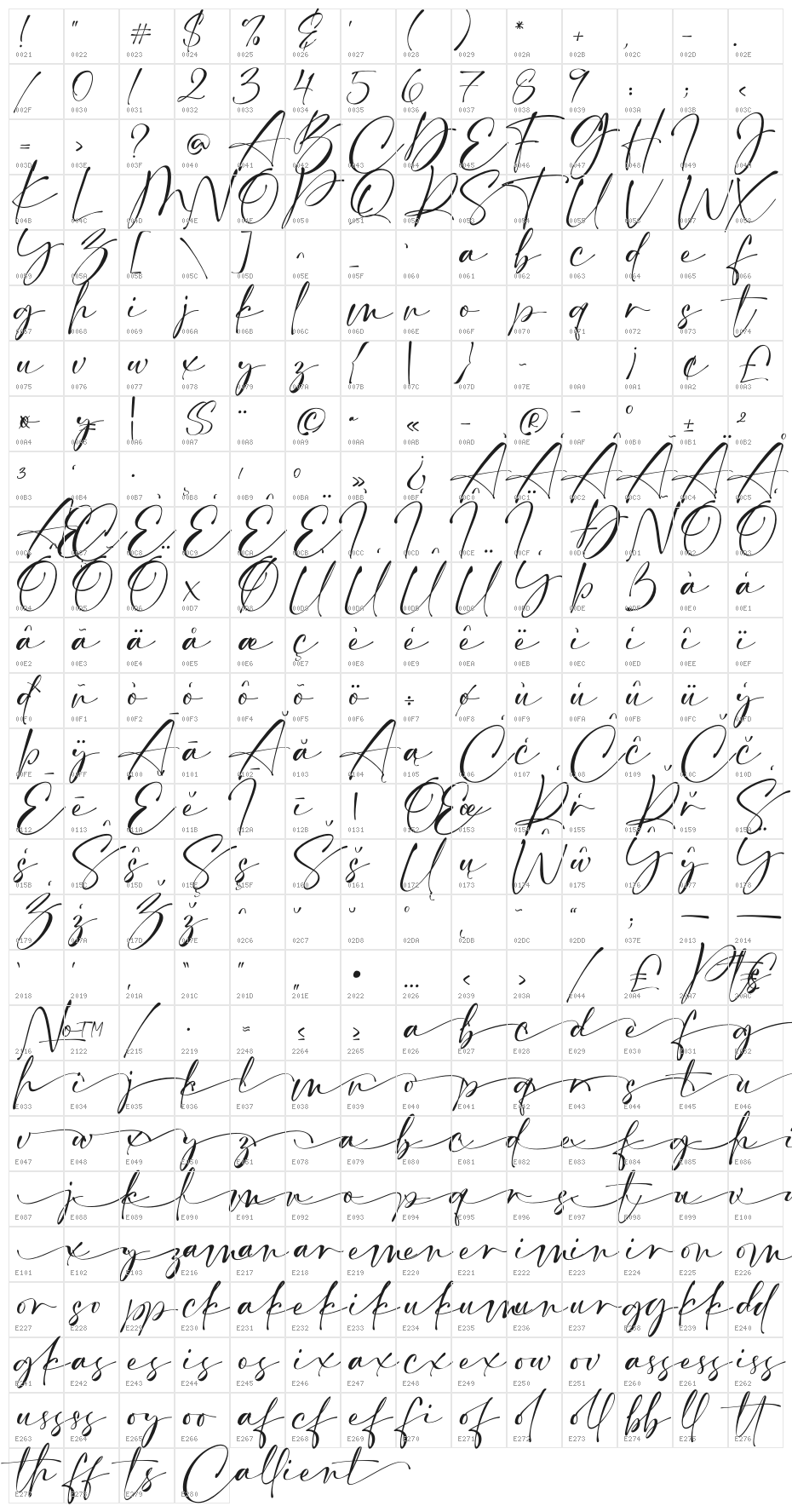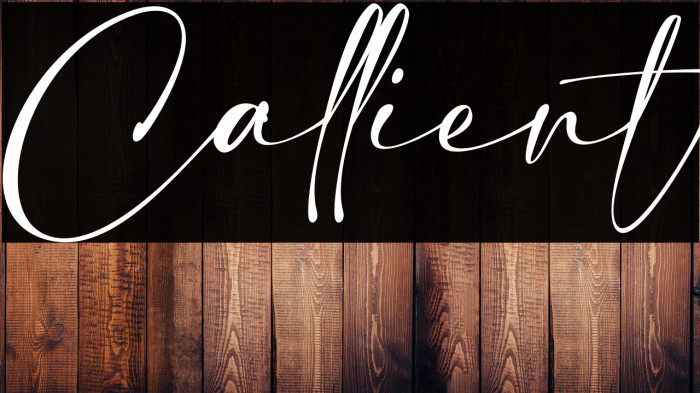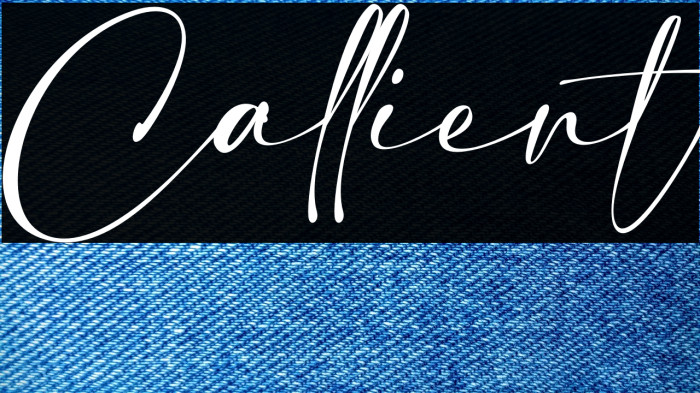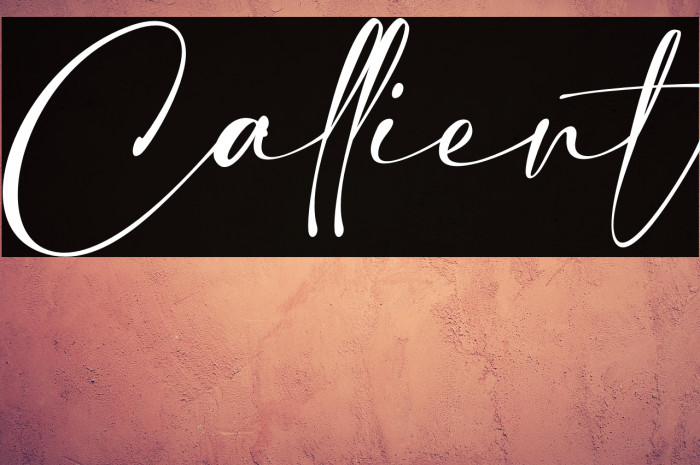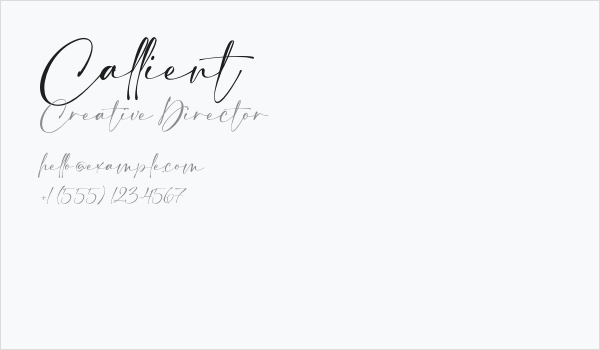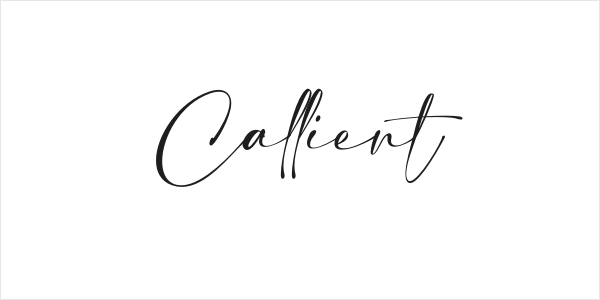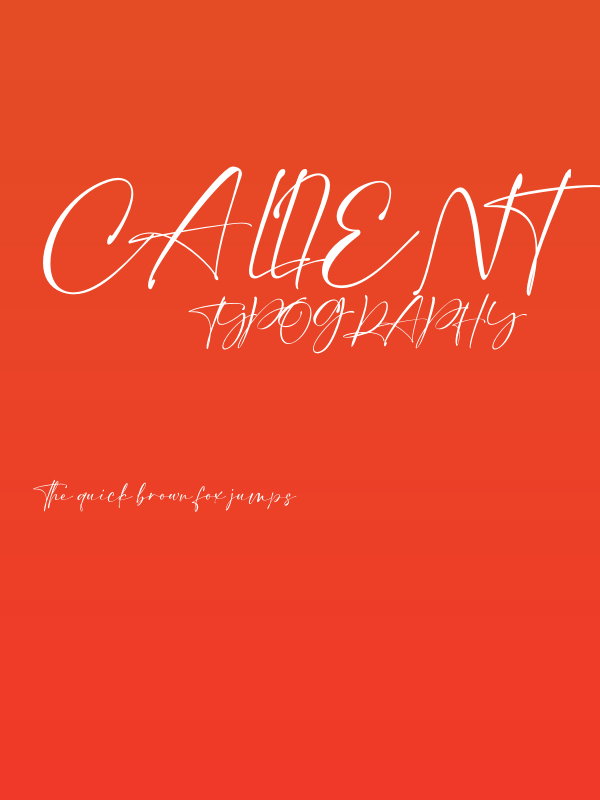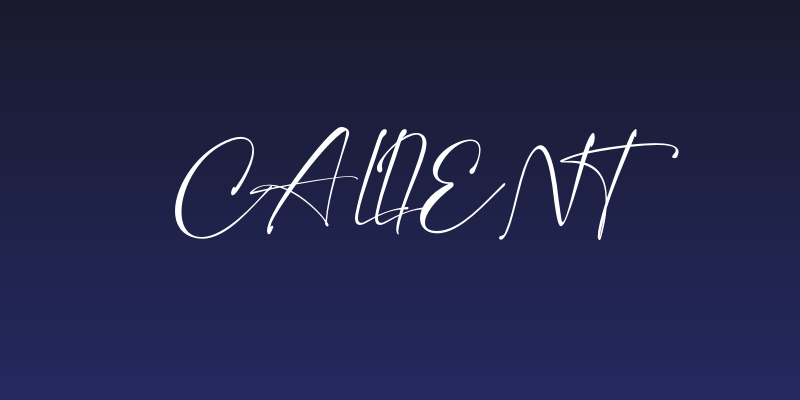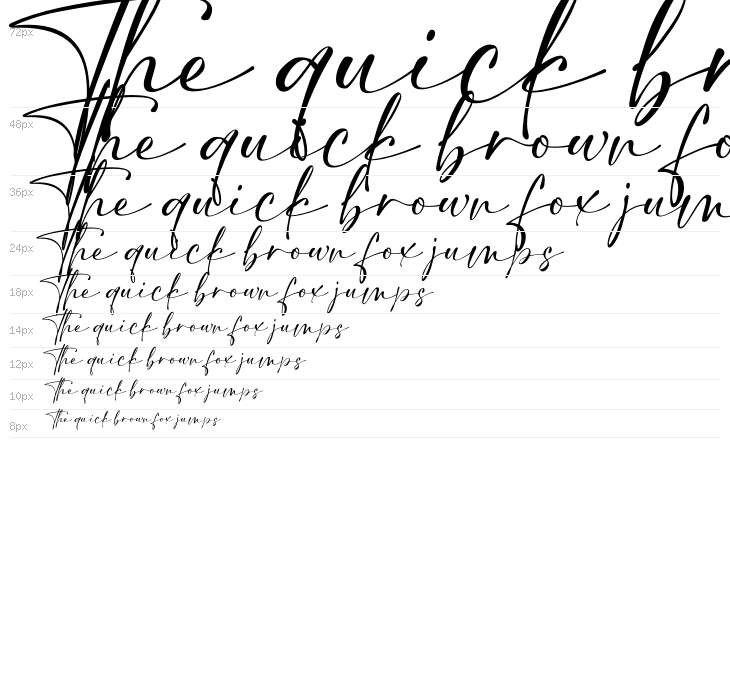
Callient Font
Callient Description
A flowing, elegant script font with a handwritten style, featuring smooth curves and a natural, artistic flair.
| Use Case | Logos, Invitations, Decorative text |
| Proposed Projects | Invitations, greeting cards, branding, and decorative projects. |